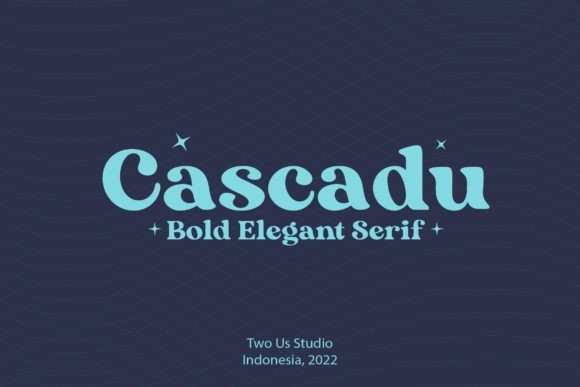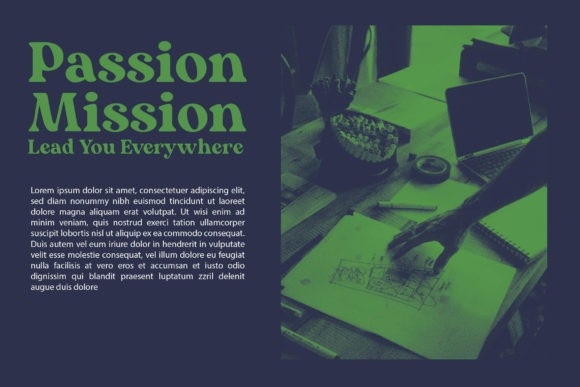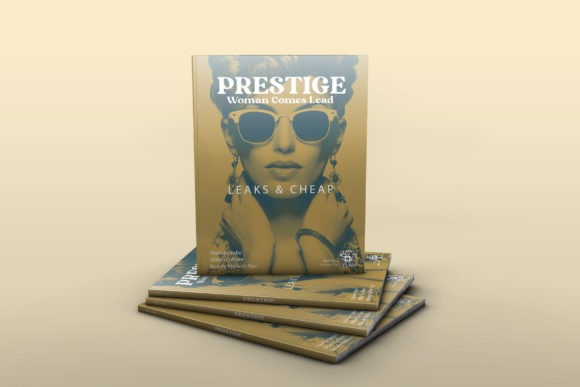
Cascadu Font
Cascadu is a simple and modern bold serif font. This minimalist and clean font can easily become your favorite. It can be used for books, magazines, social media posts, invitations, and so much more! So add this to your creations and take your designs to the next level!